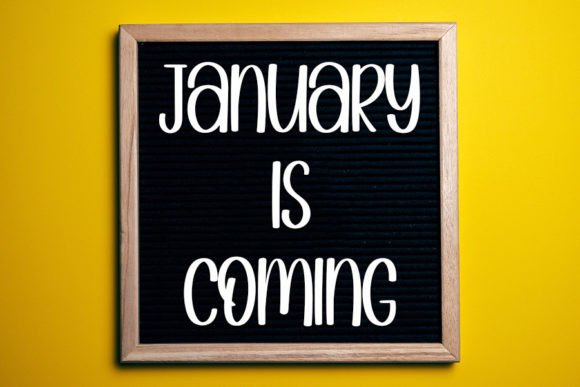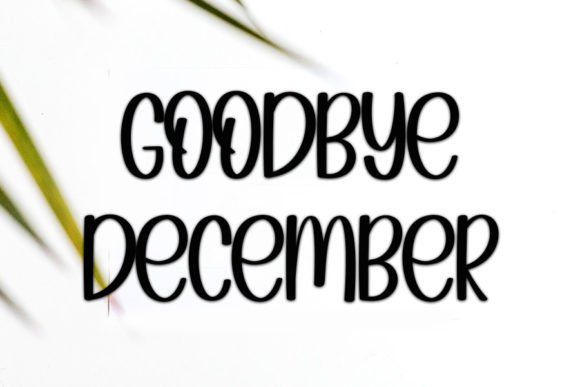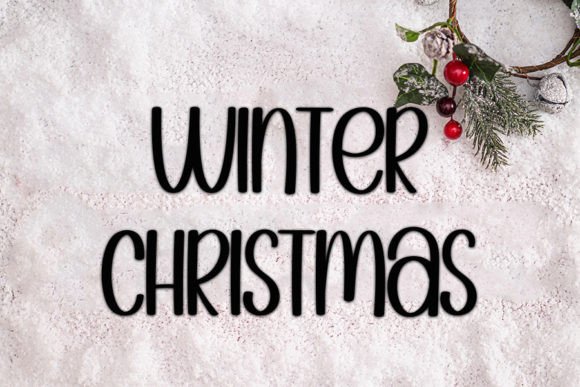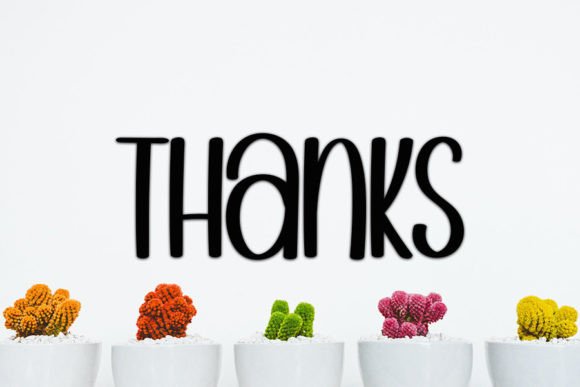
January Font
What Is January Font?
January Font is a neat handwritten script designed to bring elegance and warmth to your creative work. Each letter has a smooth, natural flow that feels both refined and approachable. Its clean lines and balanced shapes make it perfect for projects that need a touch of timeless beauty.
This typeface combines classic charm with modern style, giving you the flexibility to use it across different industries and design applications.
January Font is ideal for a wide range of projects. For example, it works beautifully on wedding invitations, save-the-date cards, and event programs. Its delicate strokes help create a romantic and memorable atmosphere that guests will love.
If you design logos, January Font helps brands look polished and sophisticated. Boutiques, creative studios, and small businesses often use handwritten typefaces to build a warm, personal connection with their audience.
You can also use this font for social media graphics. Whether you create inspirational quotes, announcements, or promotional banners, January Font gives your content a cohesive and stylish feel.
Additionally, this typeface looks great on product packaging and labels. Handmade items, gourmet foods, and beauty products gain an upscale look with January Font’s elegant lettering.
Why Should You Choose January Font?
One of the best reasons to use January Font is its versatility. You can pair it with simple serif or sans-serif fonts to balance its decorative script. This combination keeps your designs clean, professional, and easy to read.
Designers love how January Font saves time. Each character is carefully crafted, so your work looks polished right away. Whether you’re an experienced designer or just starting, this font makes it easy to create professional results.
January Font helps your work stand out by adding a genuine, handcrafted feel. Its elegant curves create a sense of sophistication while remaining friendly and inviting.
When customers see your designs, they will notice the attention to detail and the high-quality look that January Font brings. This positive impression can help build trust and strengthen your brand’s image.
Using this font also improves readability. Despite its script style, each letter is clear and legible, even at smaller sizes. This makes it a smart choice for projects that need both beauty and clarity.
January Font is more than a handwritten script—it’s a creative tool that helps you share ideas with grace and style. From wedding invitations to branding materials, this typeface adapts to many uses and always leaves a lasting impression.